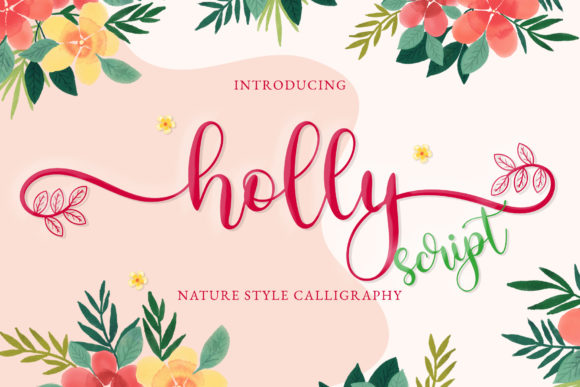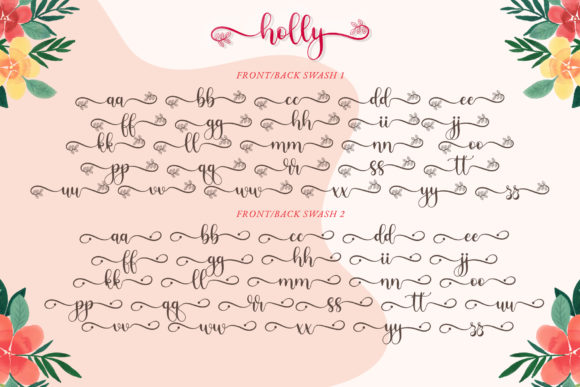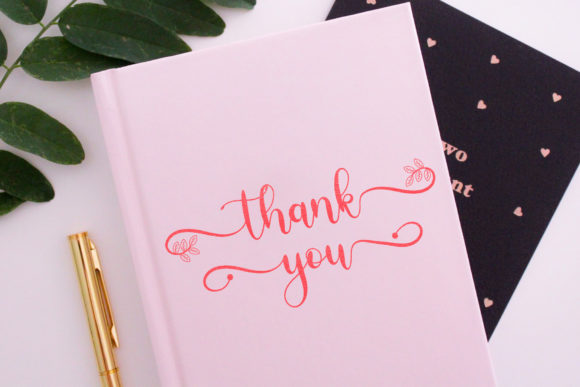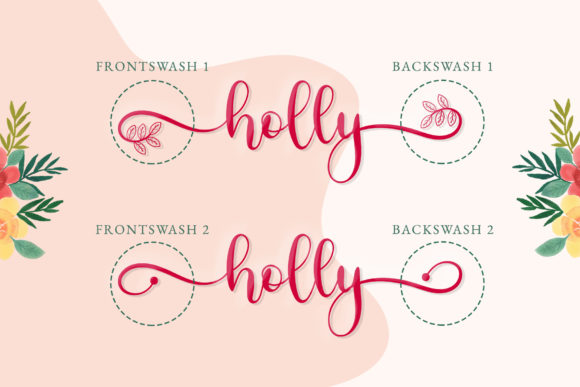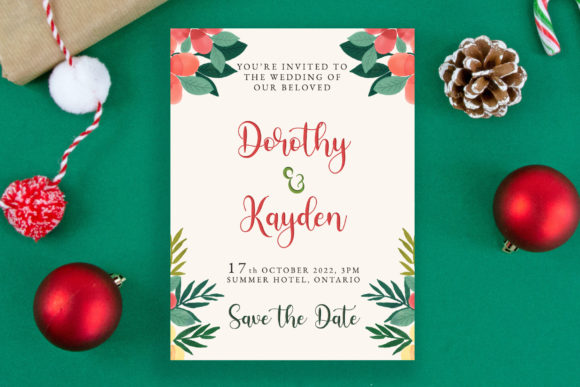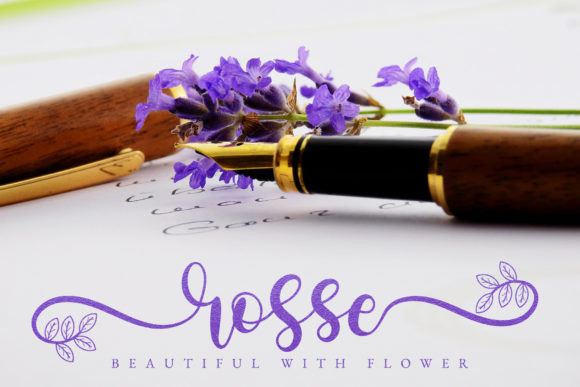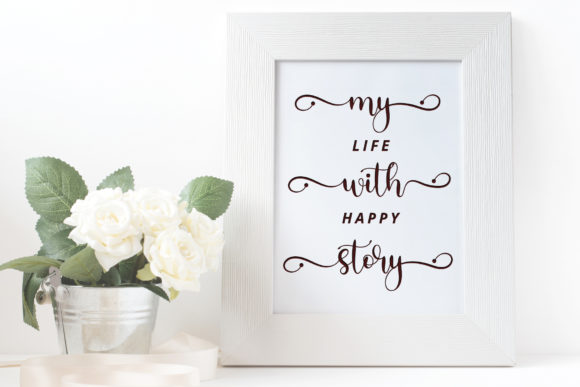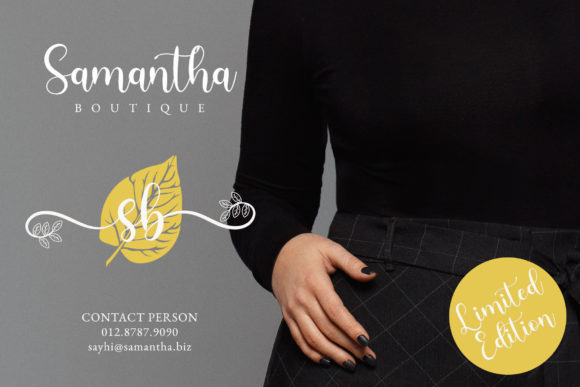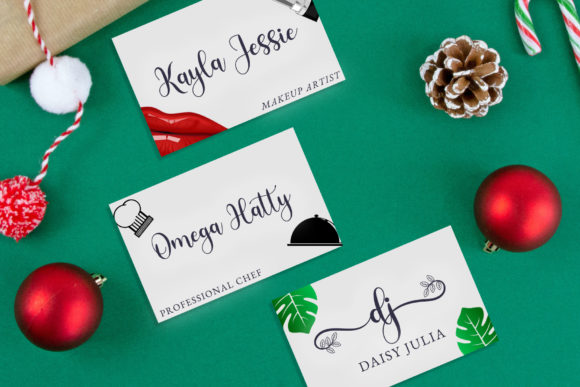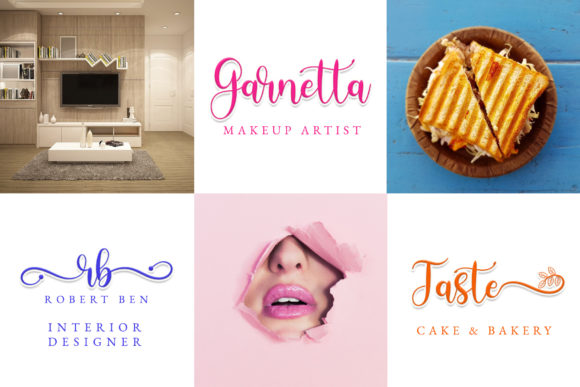
Holly Script Font
About Holly Script Font
“Holly Script” is a font that embodies delicacy, elegance, and fluidity. Its meticulously designed characters strike a harmonious balance, making it a versatile addition to a multitude of design projects. With its varying baseline, smooth lines, captivating glyphs, and breathtaking alternates, “Holly Script” is the font that breathes life into your creative ideas.
The allure of “Holly Script” lies in its ability to seamlessly blend into diverse design themes. Its delicate and well-proportioned characters radiate a sense of timeless beauty, while the varying baseline adds a touch of movement and rhythm. This font is a testament to the art of combining elegance with functionality.
When woven into your designs, “Holly Script” transforms ordinary elements into captivating visuals. It brings an authentic and enchanting aura that enhances your projects. Whether adorning a wedding invitation, gracing a logo, or infusing charm into a quote, the font’s presence elevates the aesthetics and creates an unforgettable impact.
Integrate “Holly Script” into your design toolkit and observe how it revitalizes your creative concepts. Whether you’re a seasoned designer or a newcomer to the field, this font empowers you to craft visuals that reflect authenticity and style. Embrace the exquisite beauty of “Holly Script” and watch how it breathes life into your designs, infusing them with a touch of elegance and elegance that captivates the senses.